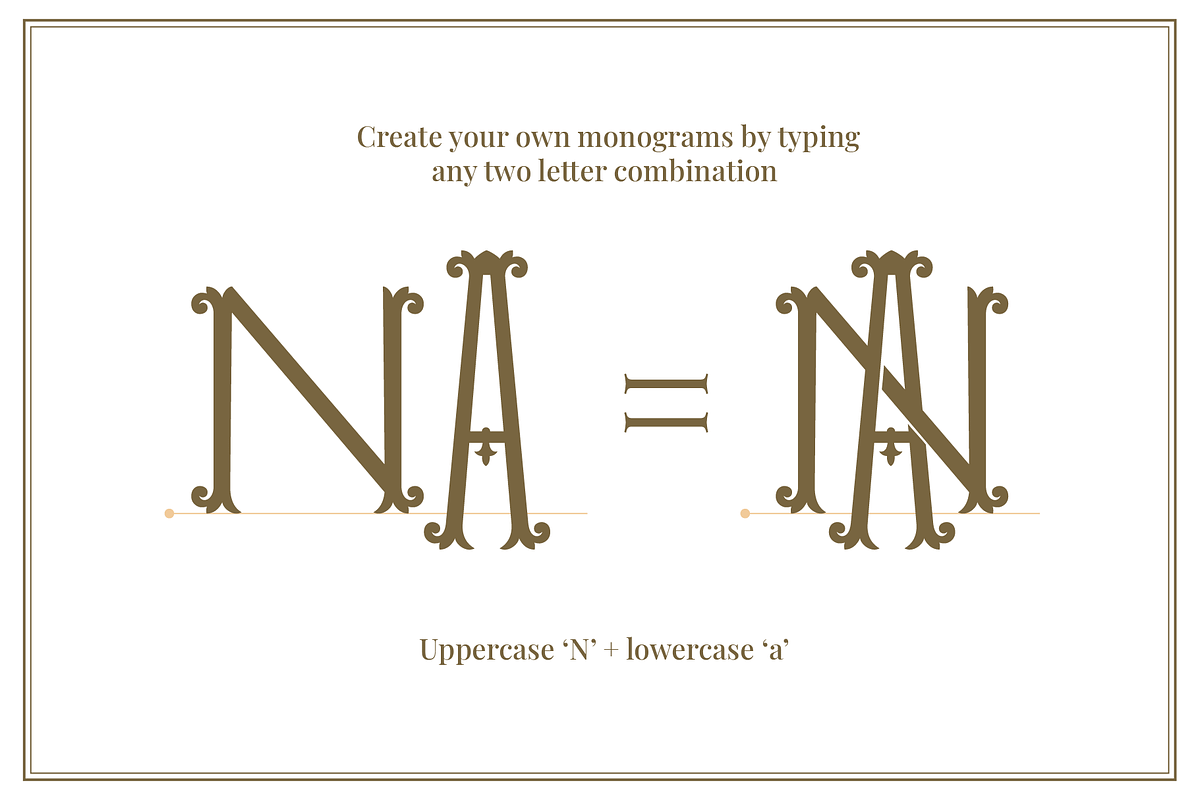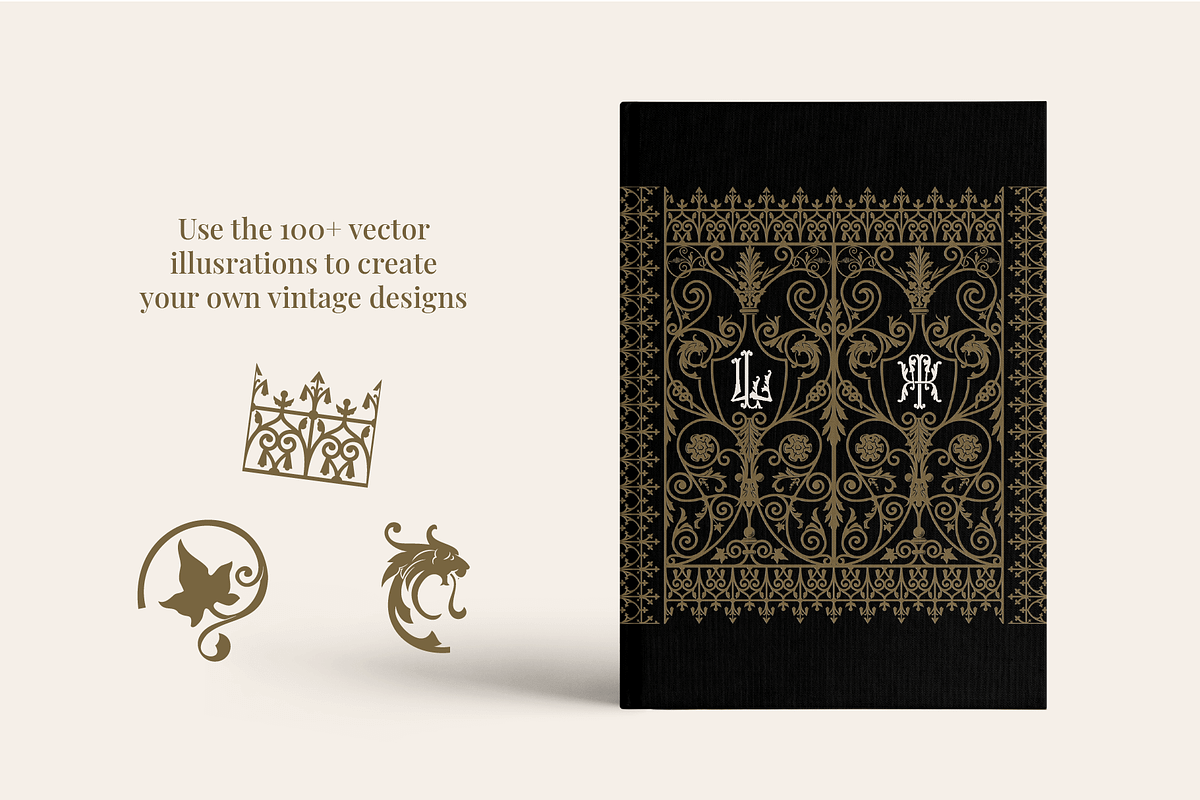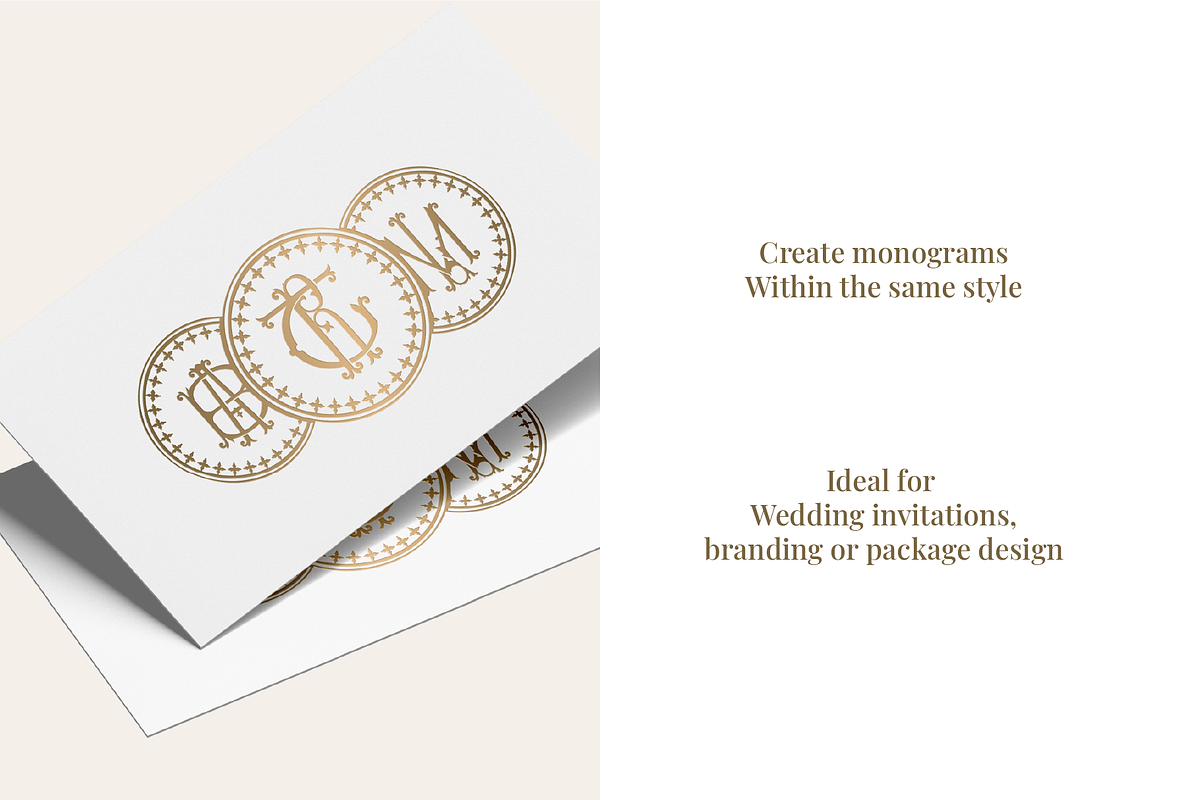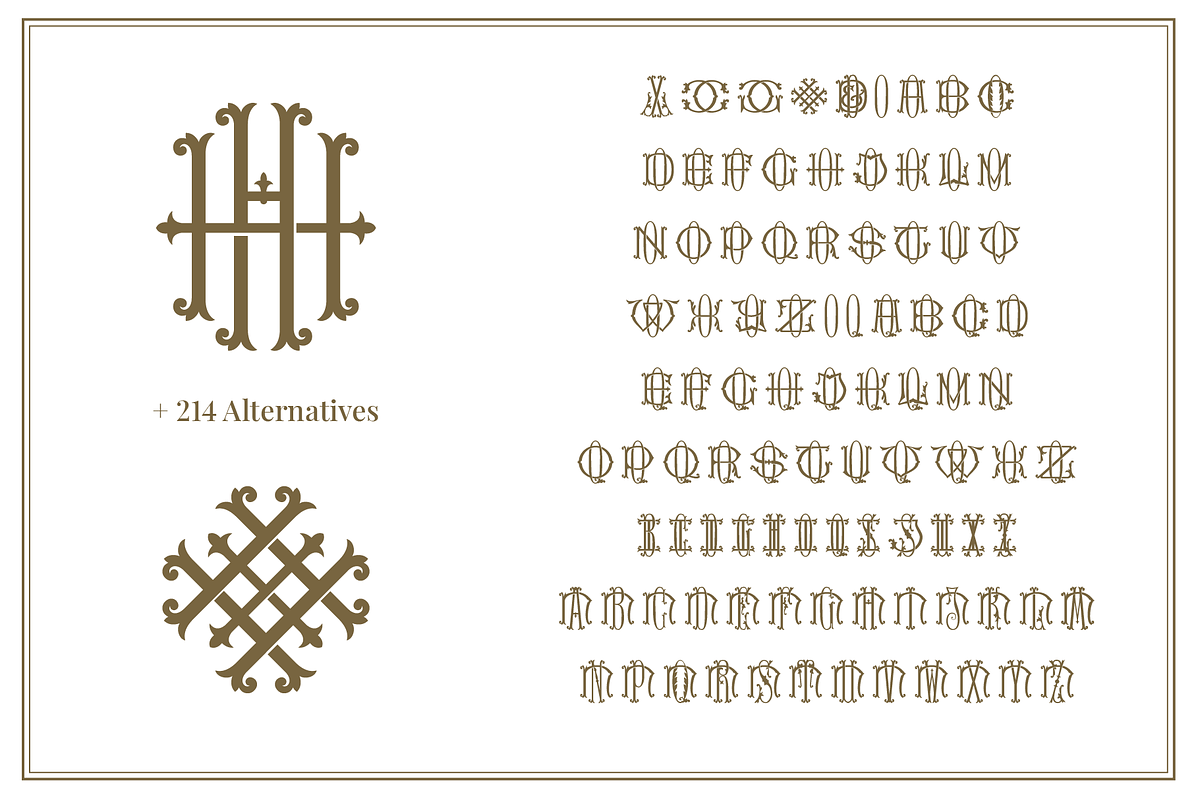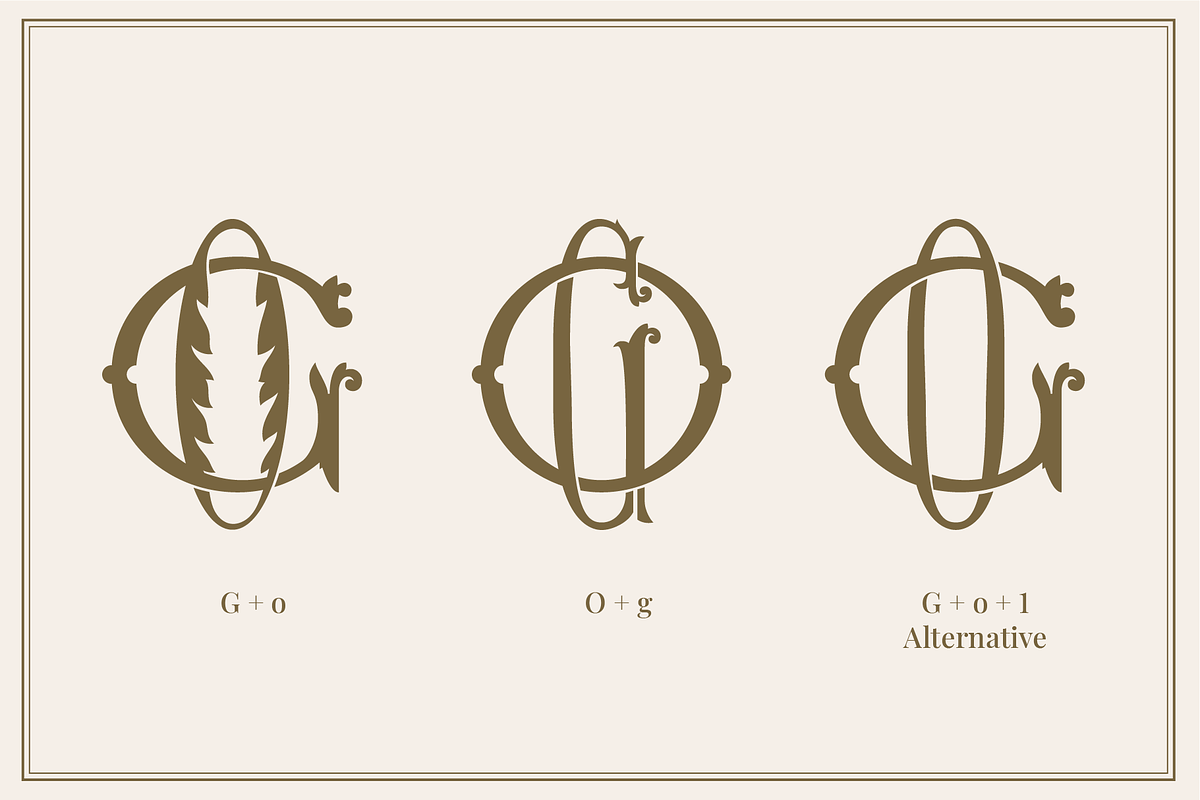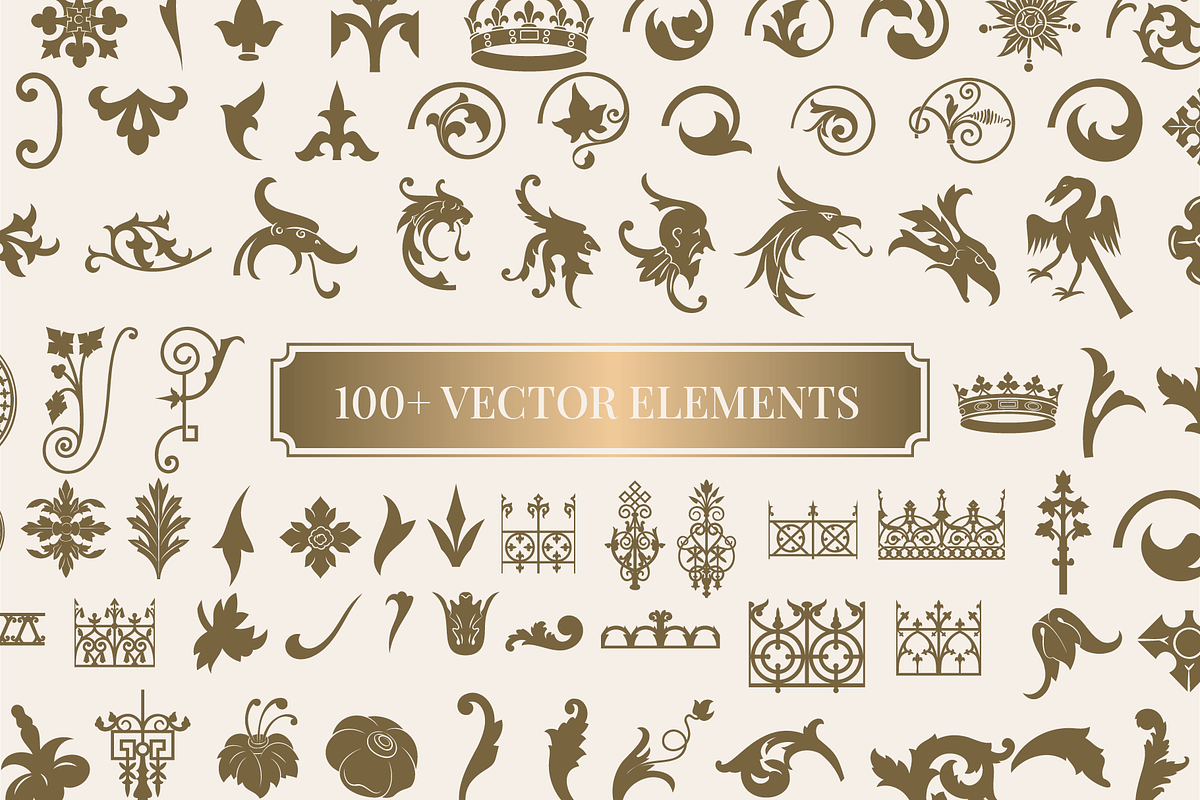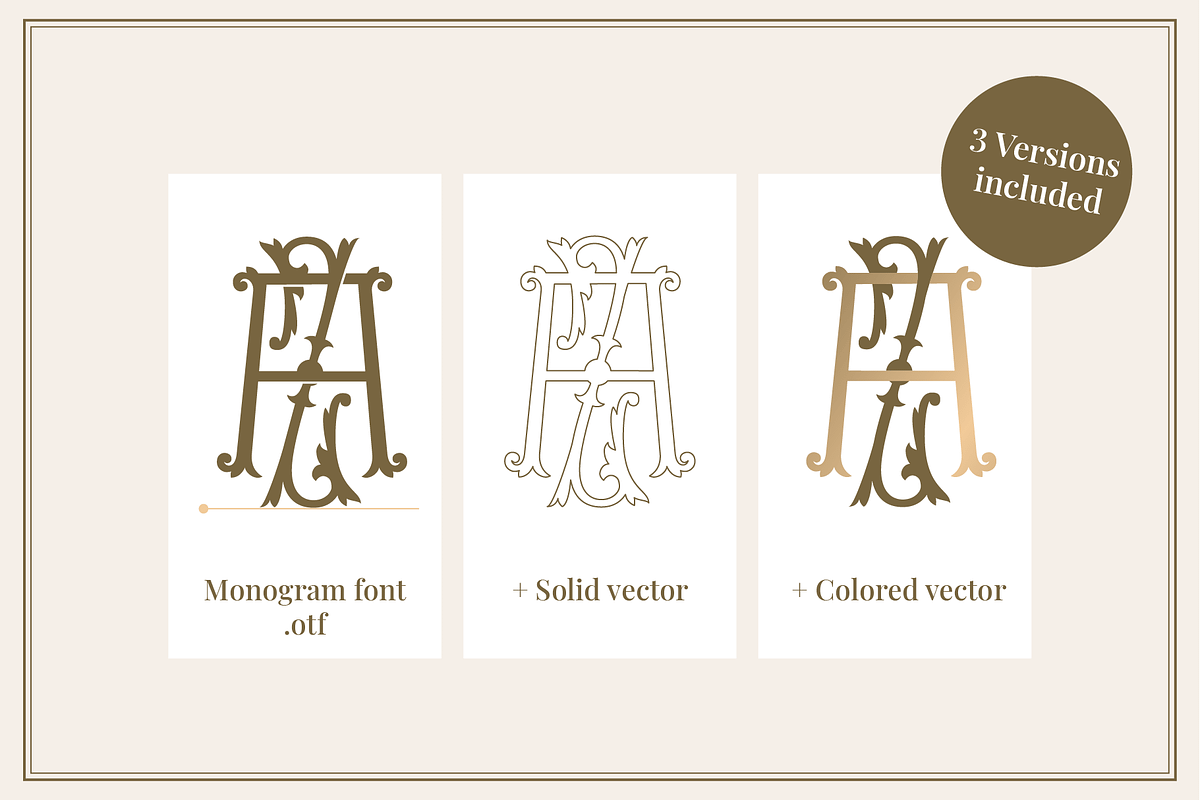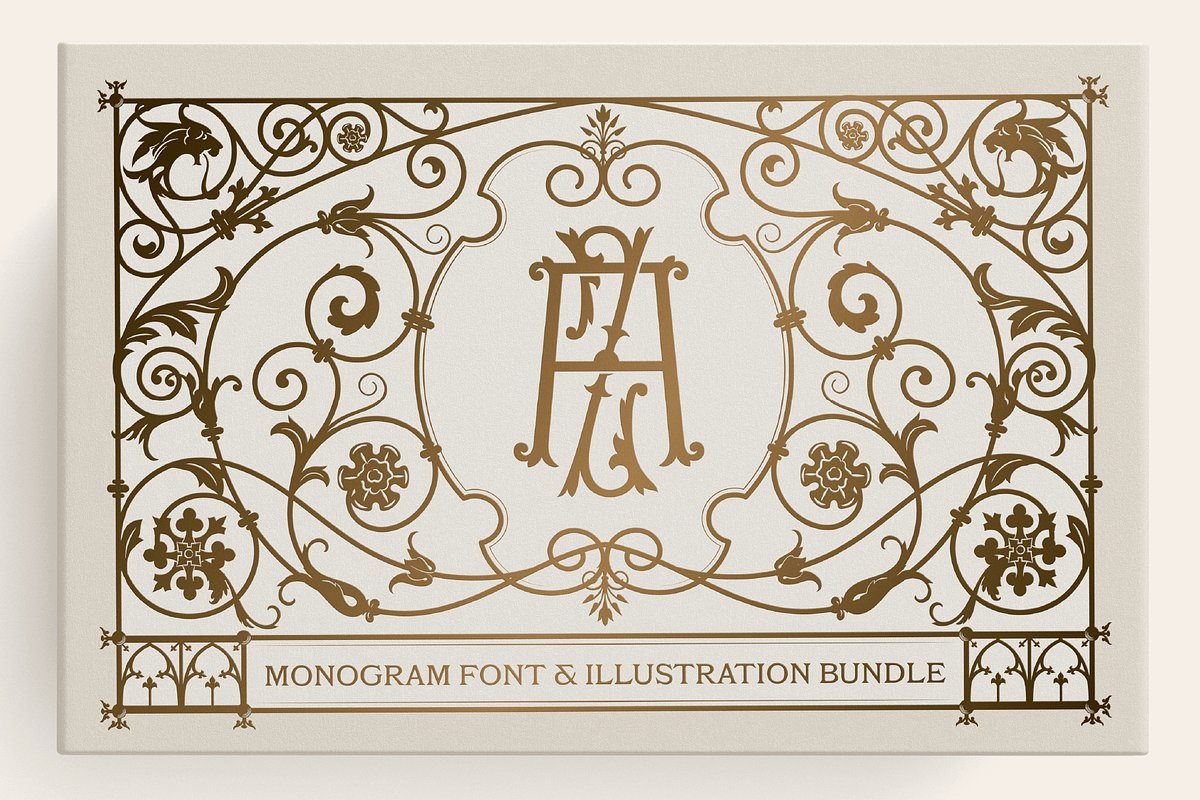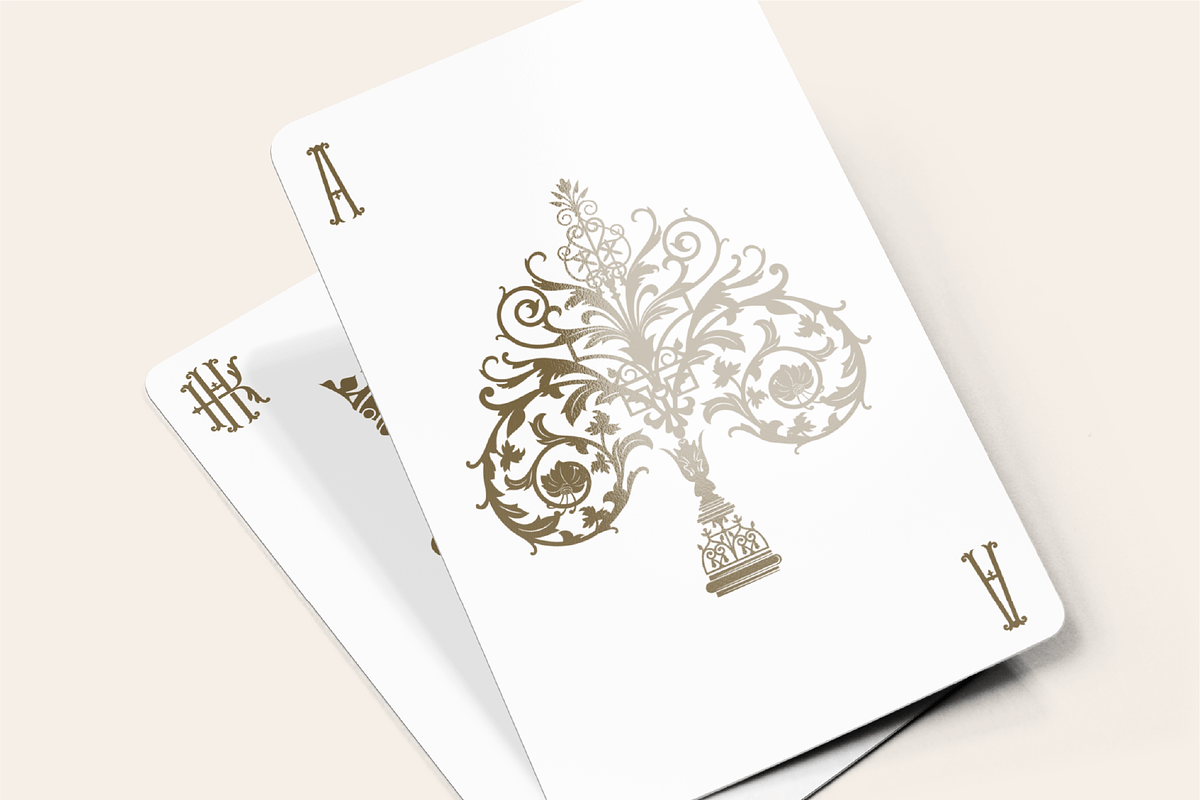
Monogram font & Illustration Bundle
This monogram font allows you to type any two characters which will automatically generate a beautiful interlocking monogram.
With 890 monograms and a set of 100+ vintage vector illustrations, this bundle will surely set a high standard in your designs.
The monogram font defining feature is its unique set of 676 Aa to Zz ligatures. 214 alternate characters allow you to change up your design even more.